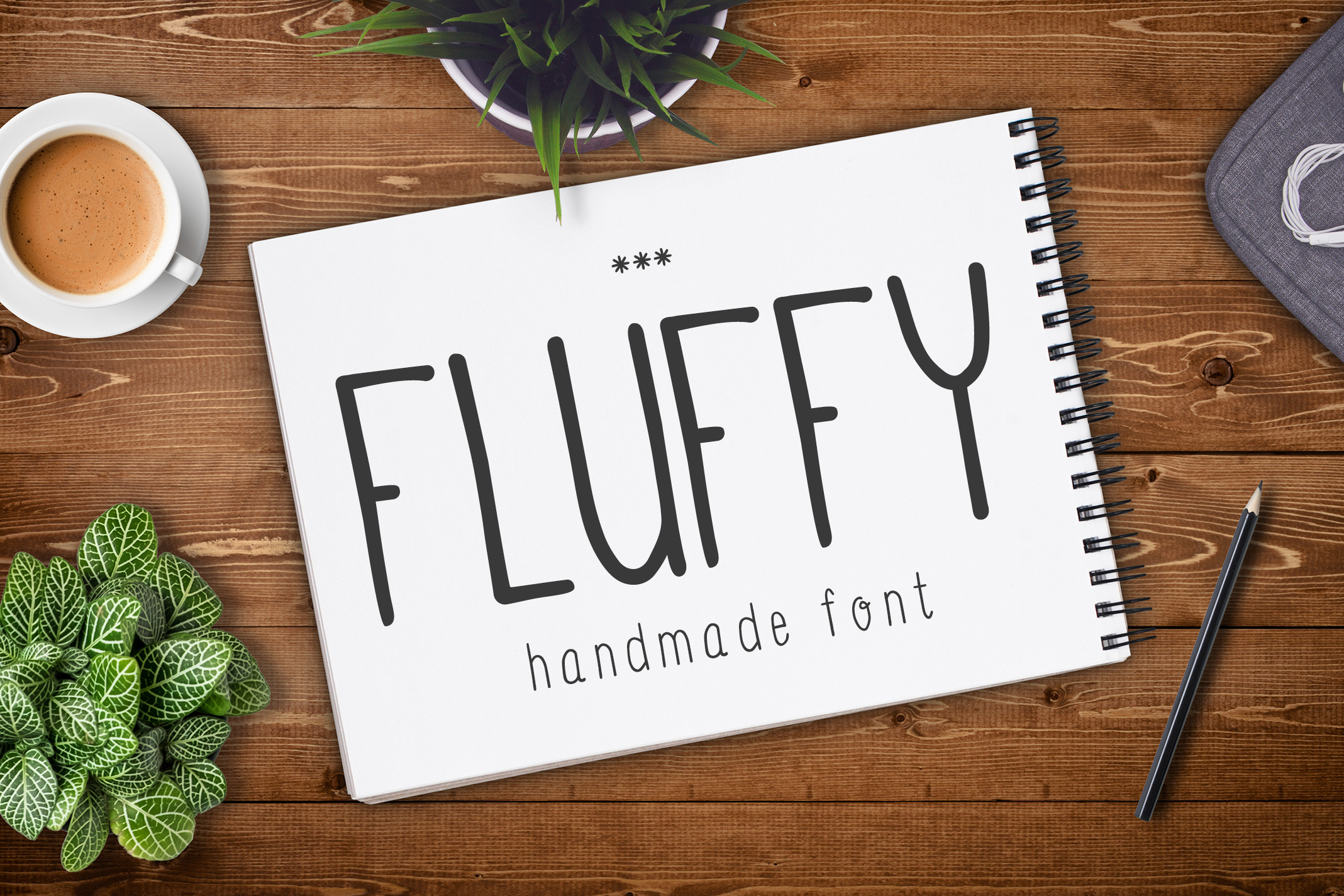
Fluffy Font
Fluffy is a unique typeface.
This amazing handmade font would be perfect for quotes, logos, clothing brand, design greeting, prints, web design, invitation, business cards, cafe and much more. Fluffy packs a set of uppercase and lowercase, numbers and punctuation.
- Fluffy Regular & Fluffy Bold
- Numerals, punctuations and special characters